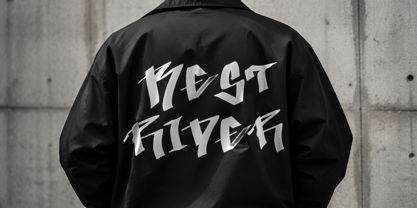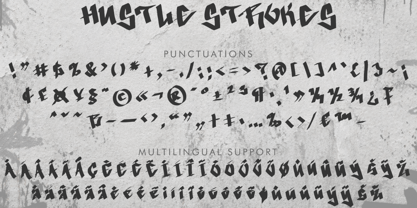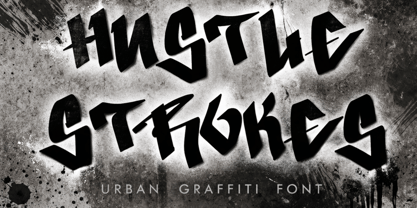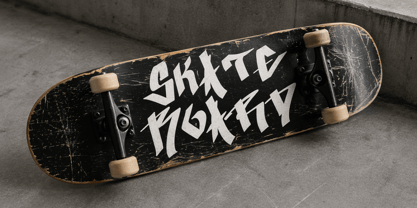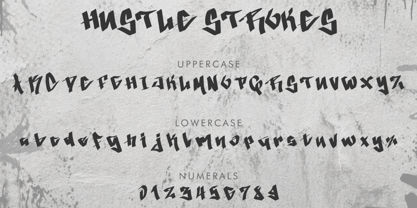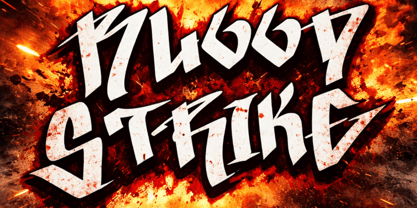
Hustle Strokes
by Yoga Letter
The Hustle Strokes Font Family was designed by Isroni Yoga Prasetya and published by Yoga Letter. Hustle Strokes contains 1 styles. More about this family
"Hustle Strokes" is an elegant and modern graffiti font. It features uppercase and lowercase letters, numerals, punctuations, and multilingual support. It's perfect for murals, wall art, prints, banners, posters, stickers, logos, branding, movie titles, christmas, halloween, winter, summer, Easter, spring, patriotic, back to school, tattoos, and more.